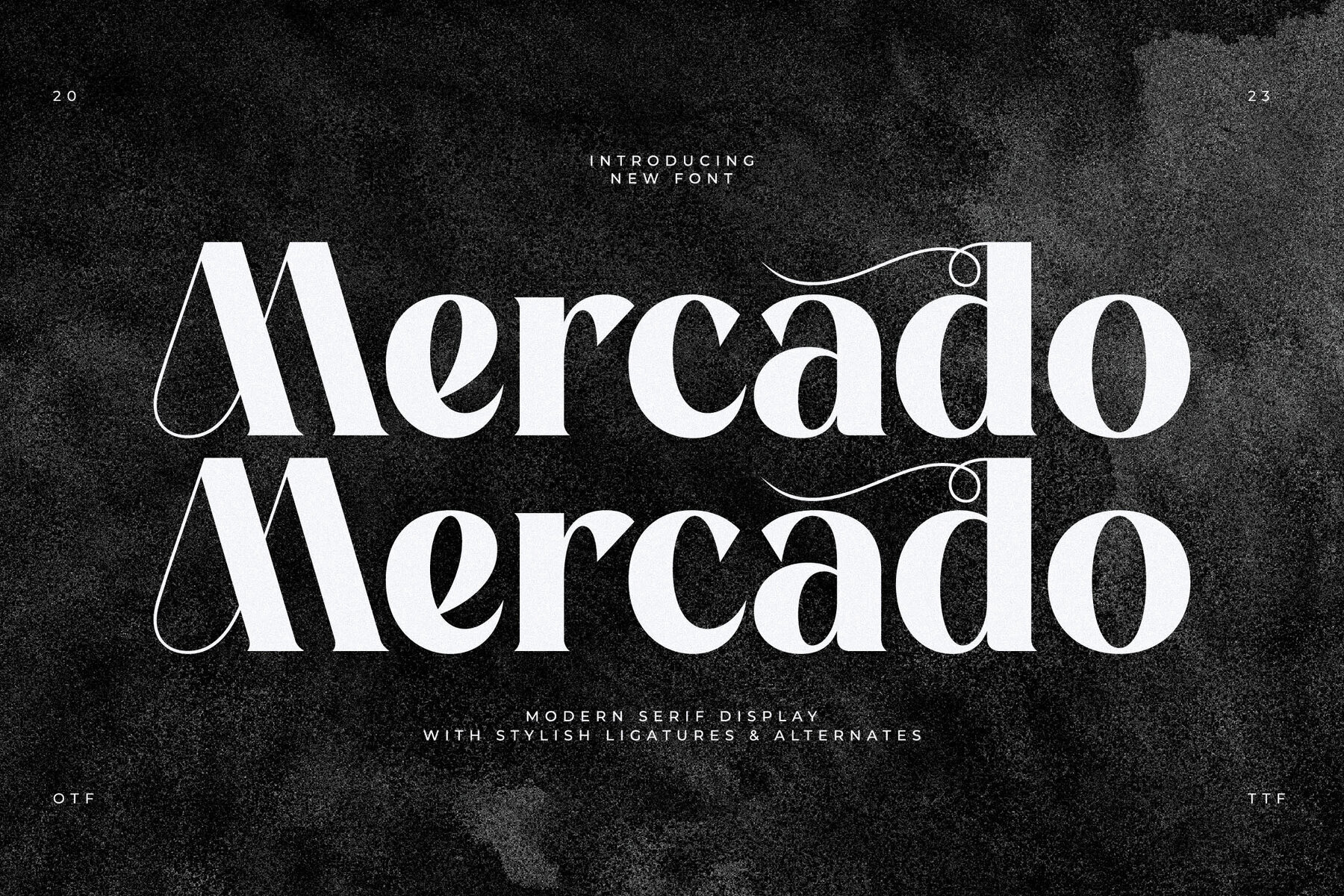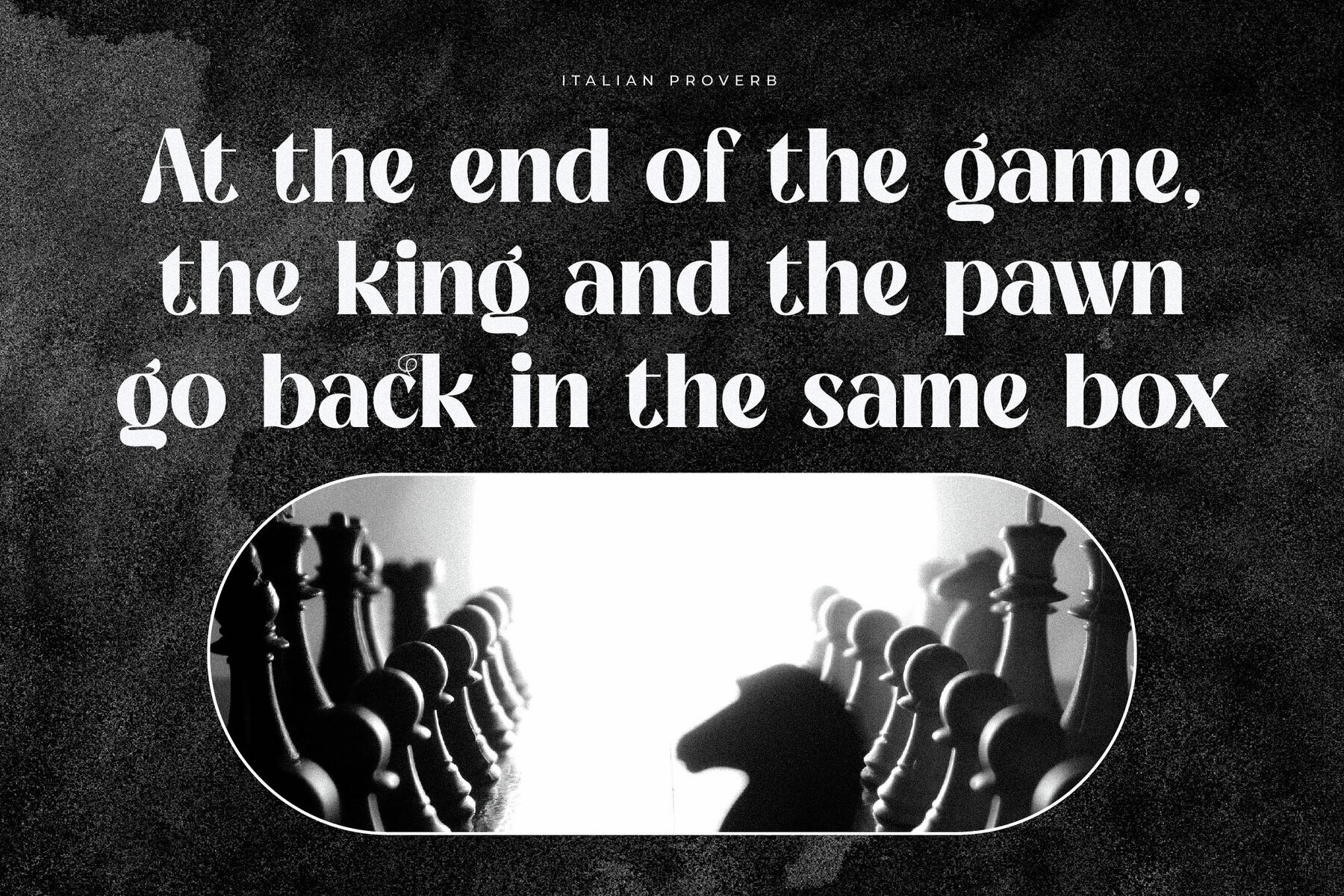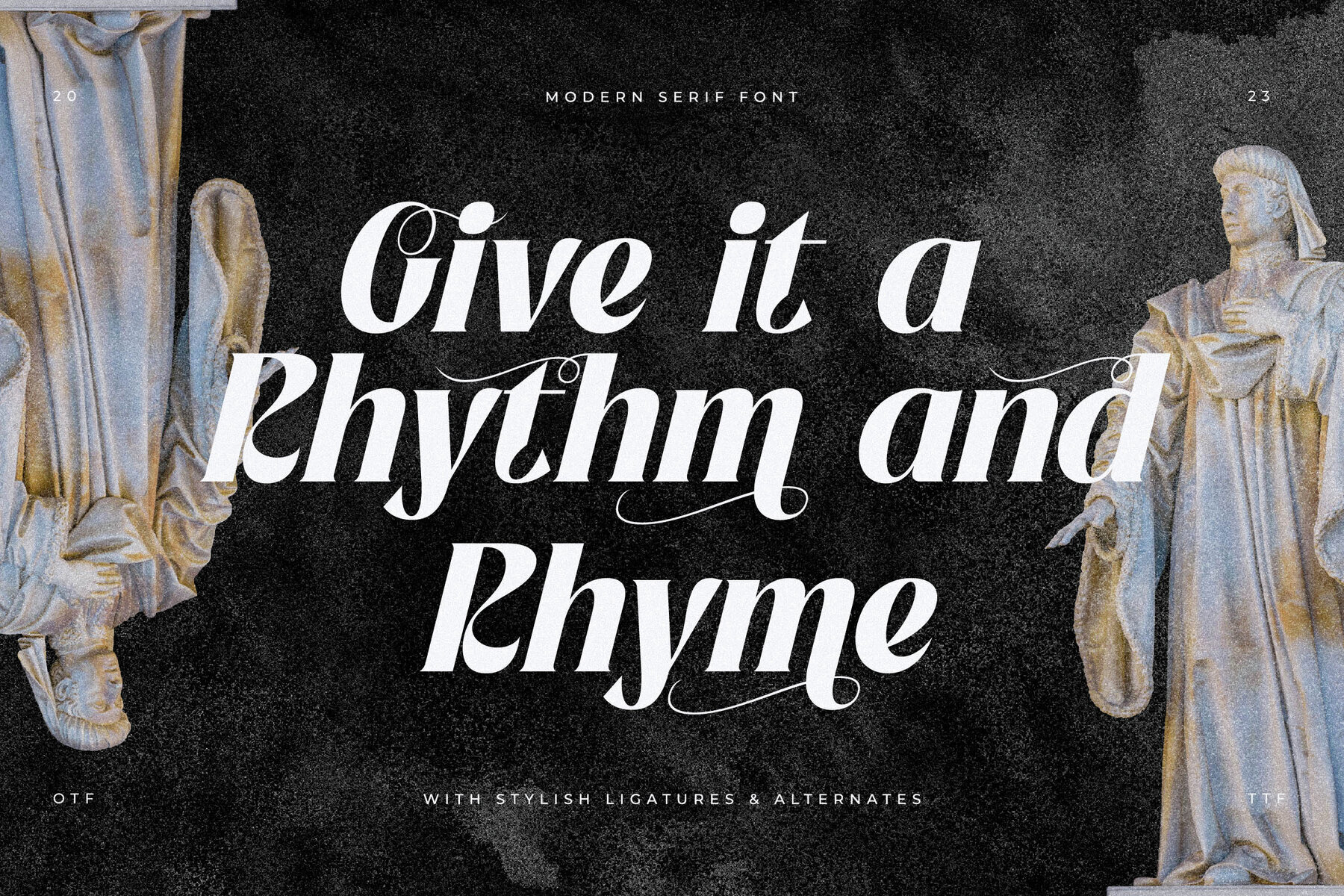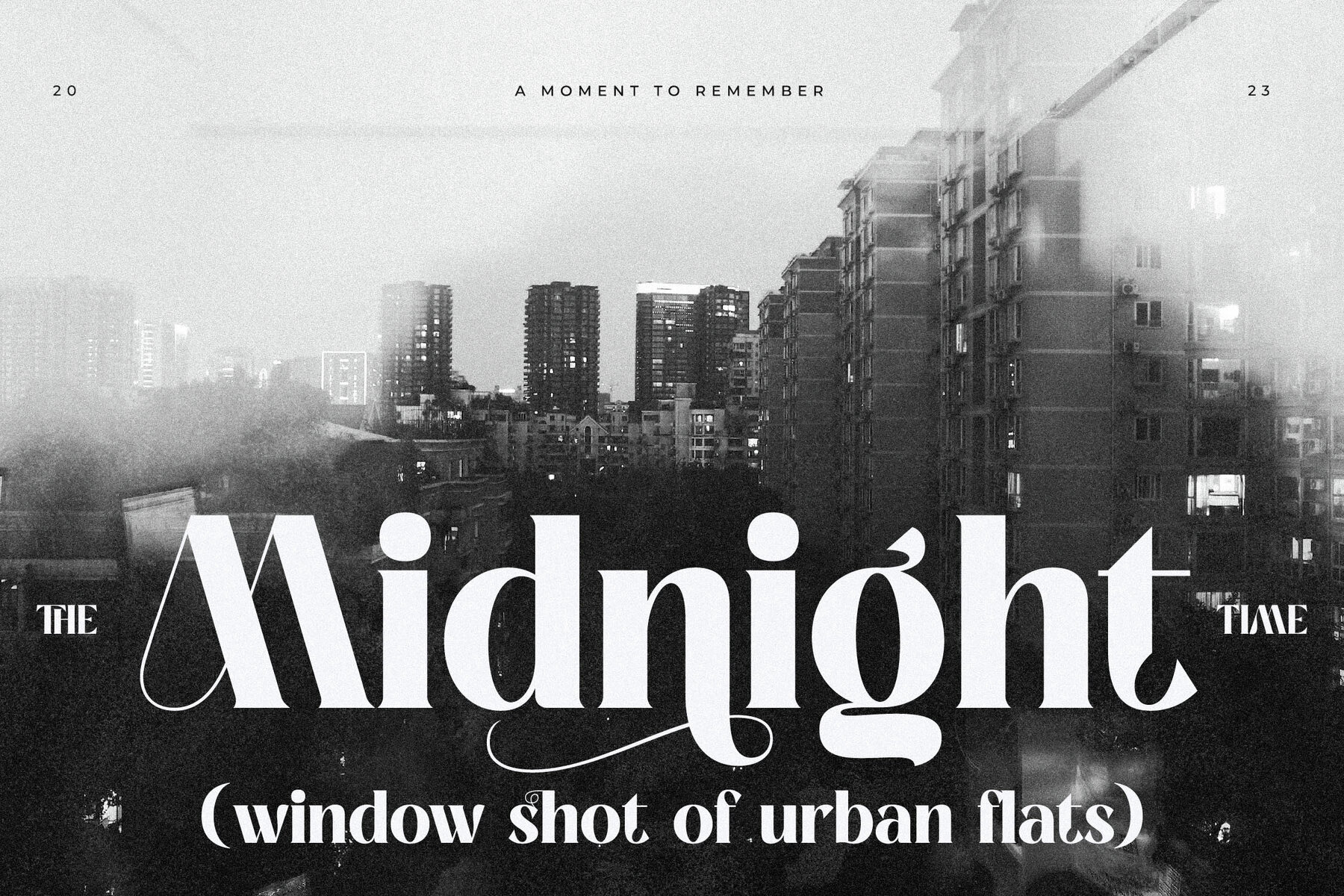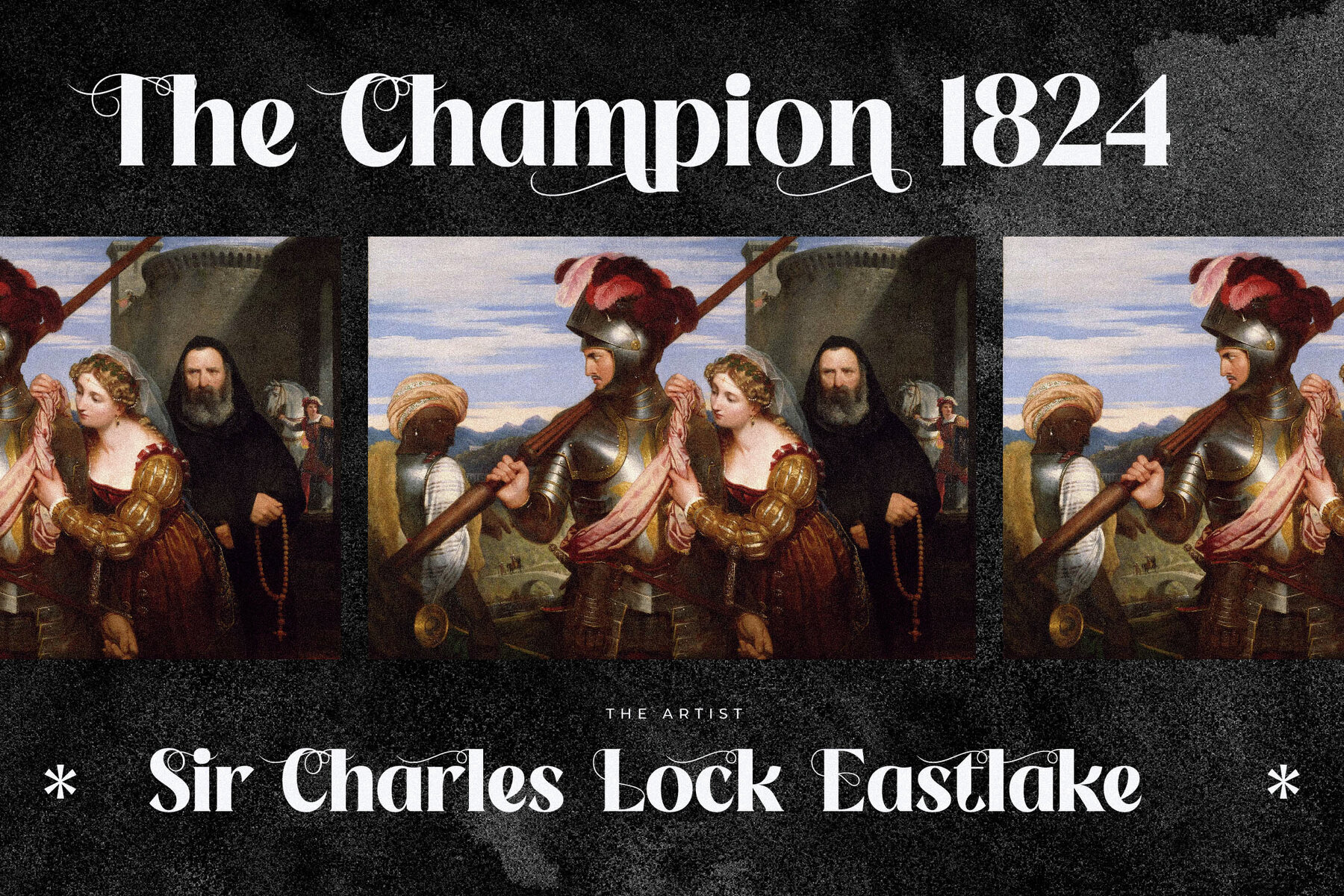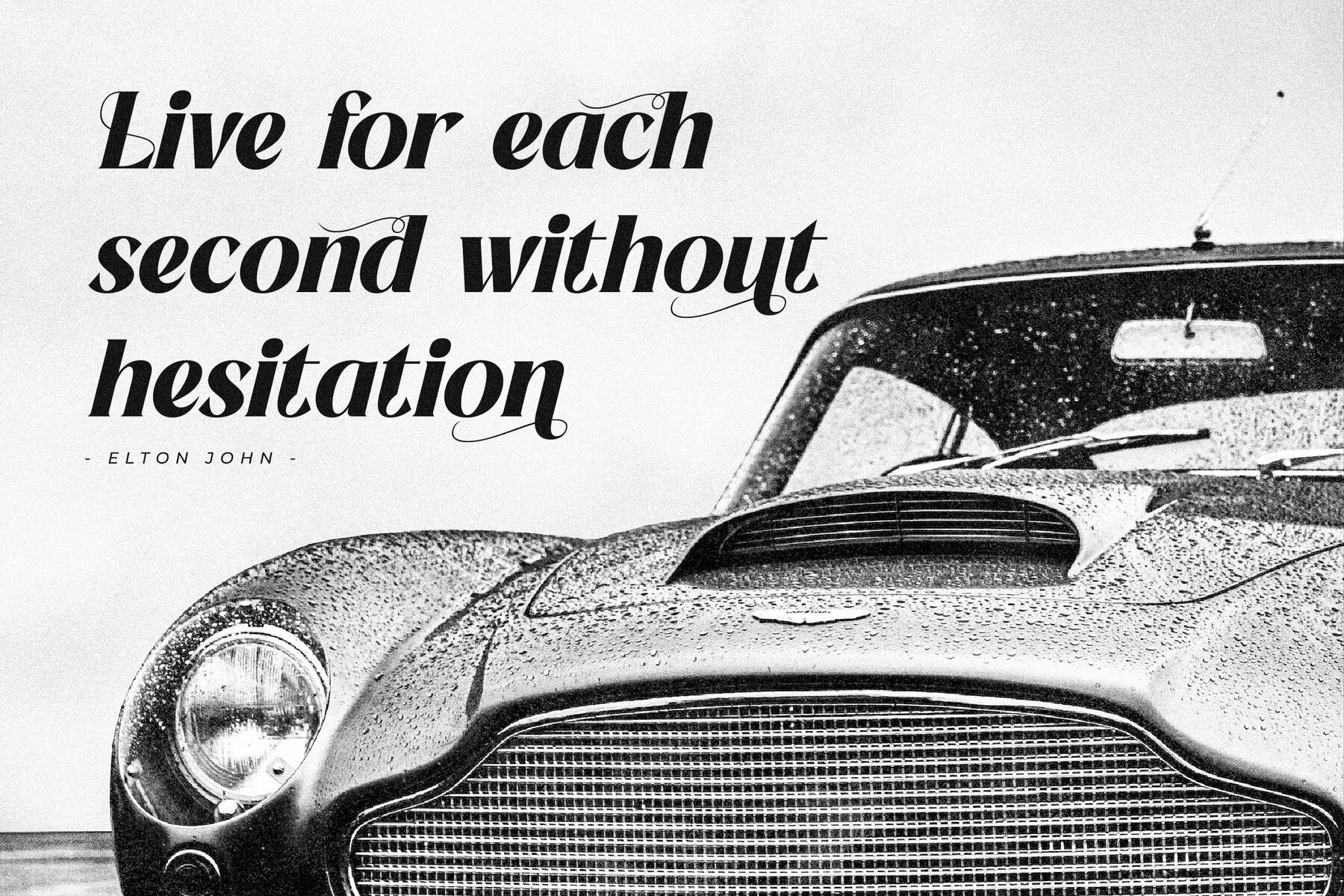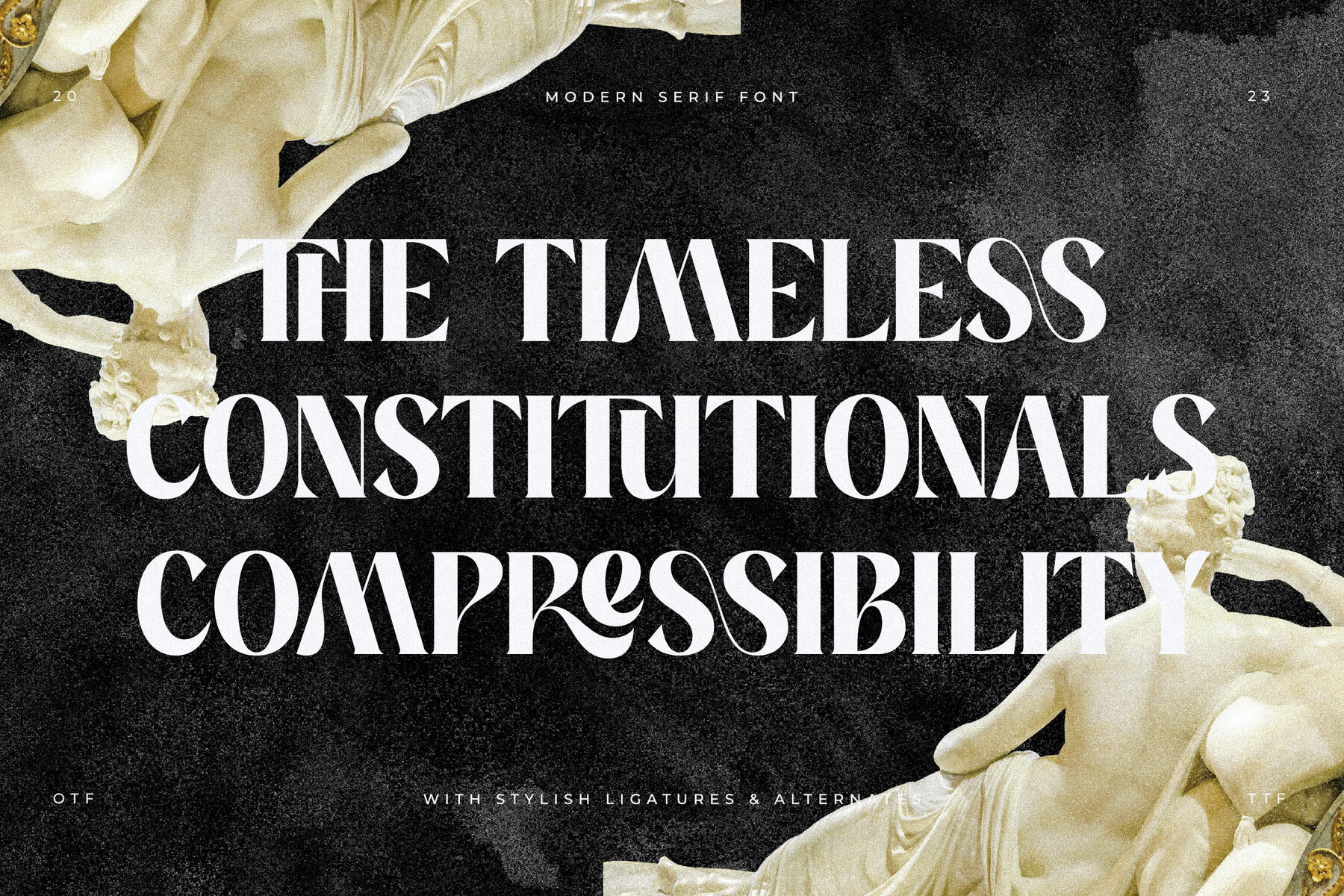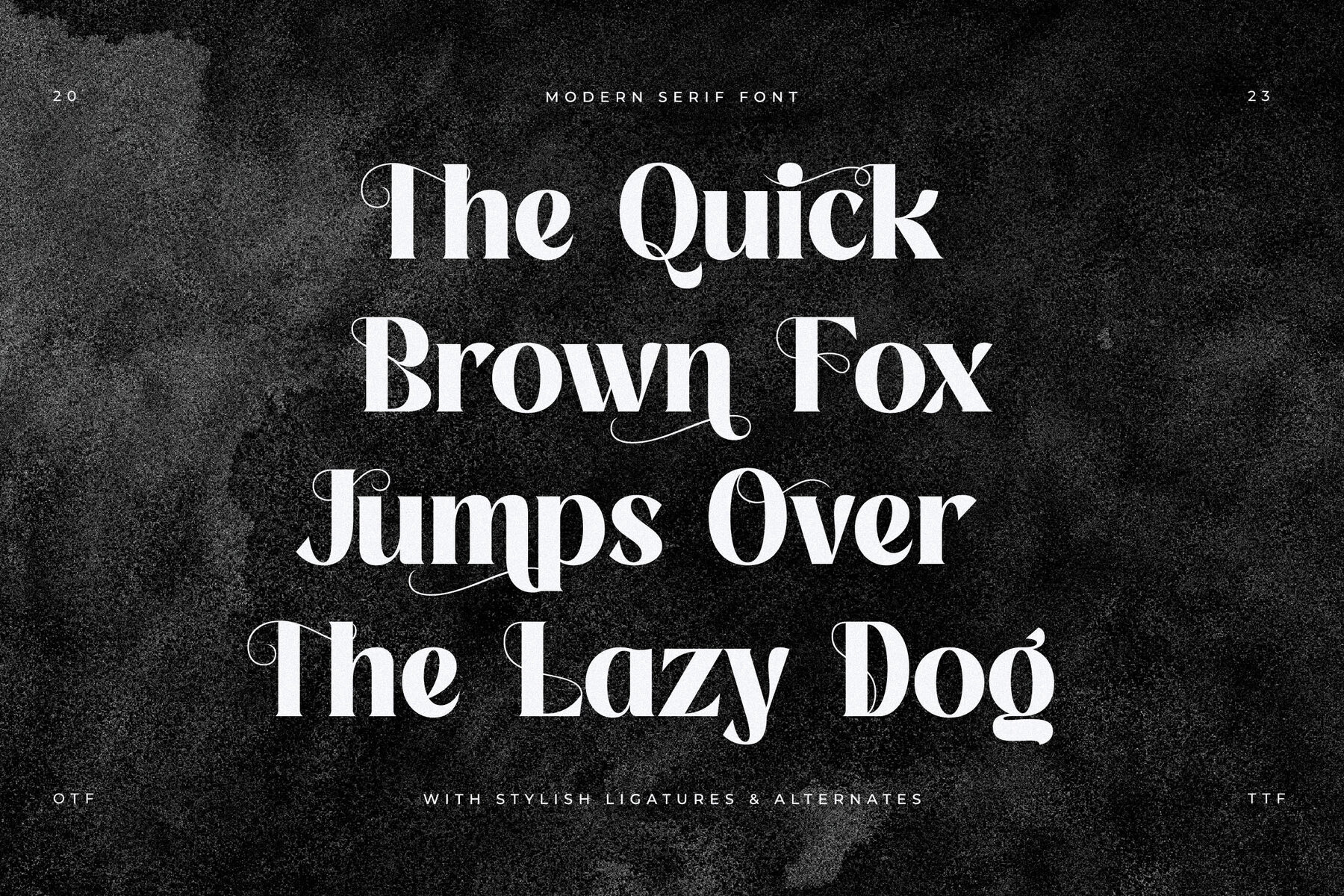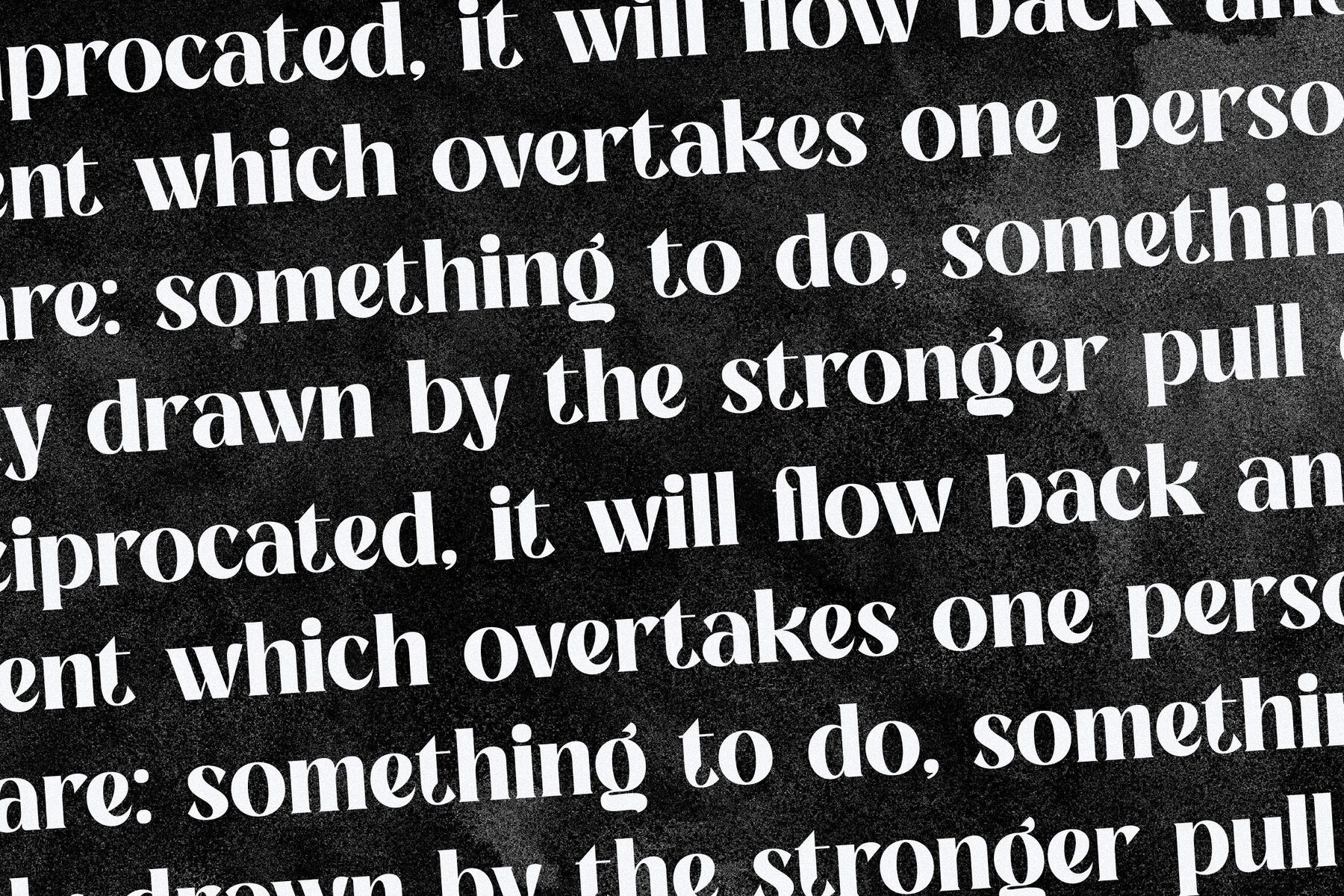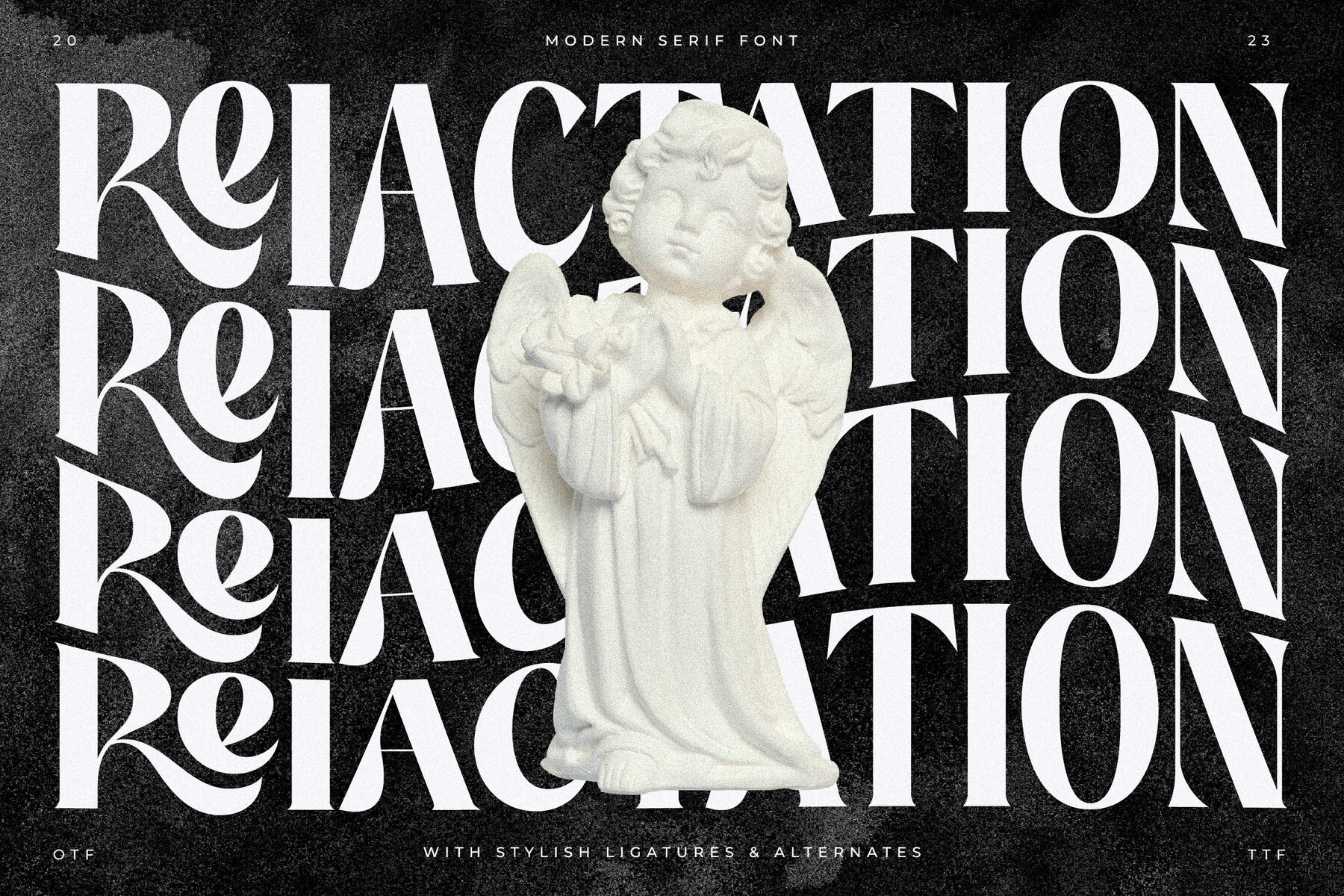
Discover Mercado Typeface
Explore the exquisite blend of modernity and classic elegance with the Mercado typeface, meticulously crafted by Storytype Studio. This serif typeface exudes a unique style and contemporary flair, making it an ideal choice for luxurious logos, book and movie titles, fashion brands, magazine layouts, clothing lines, and captivating quotes.
Features of Mercado
• Standard glyphs, alternates, and ligatures for versatile designs
• Comprehensive multilingual support to expand your creative reach